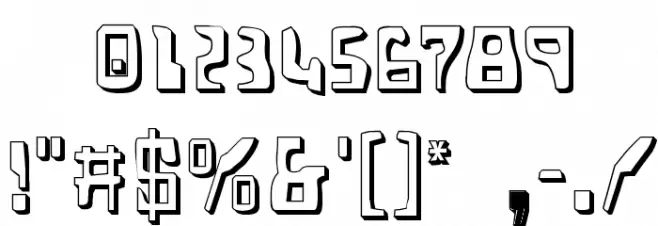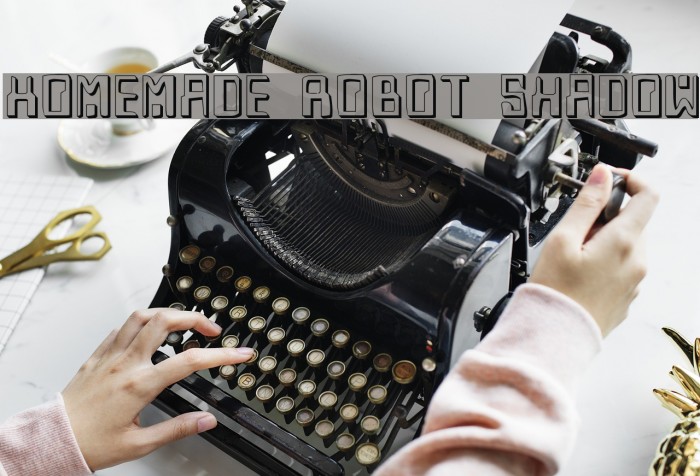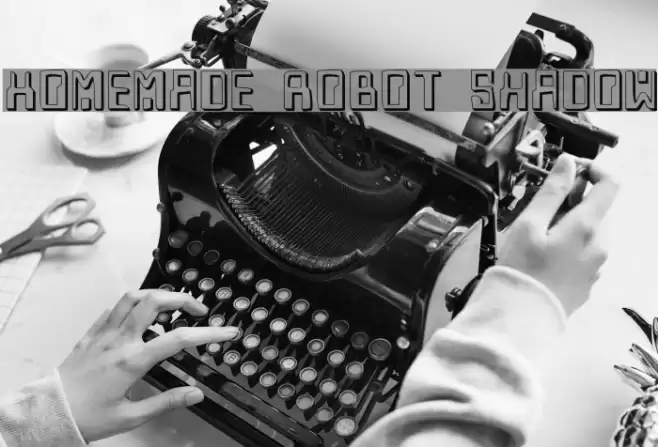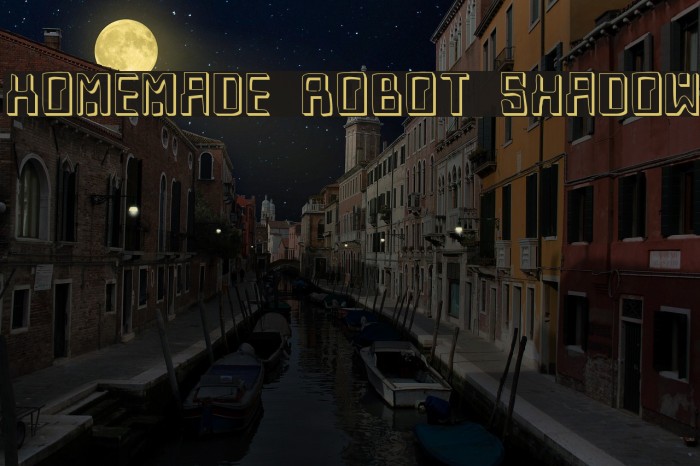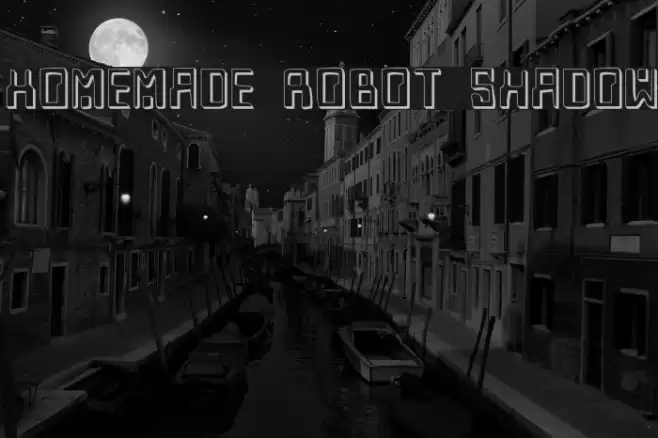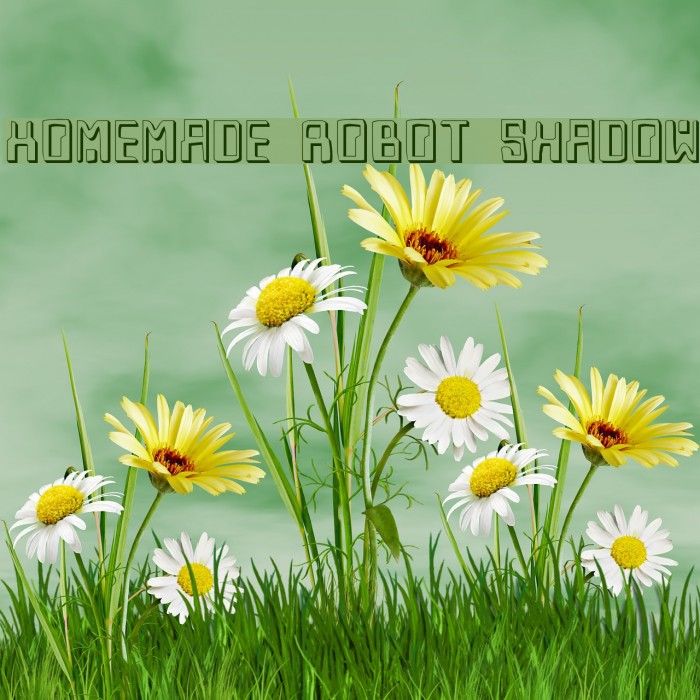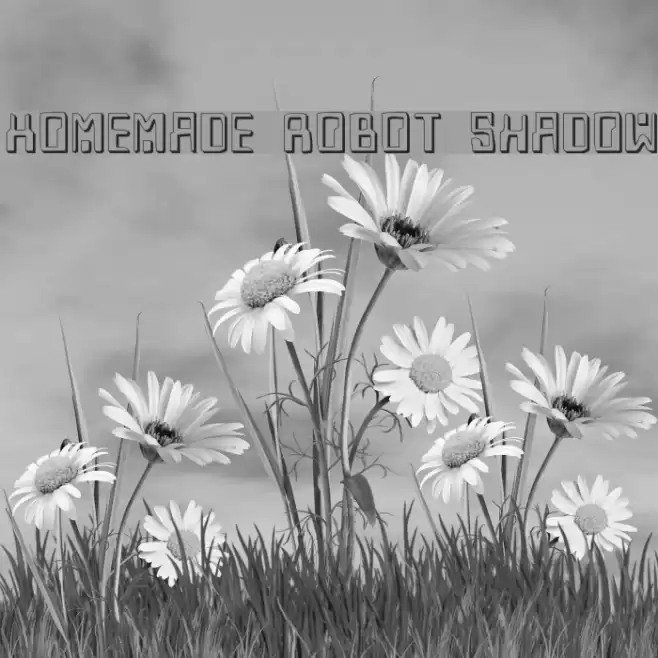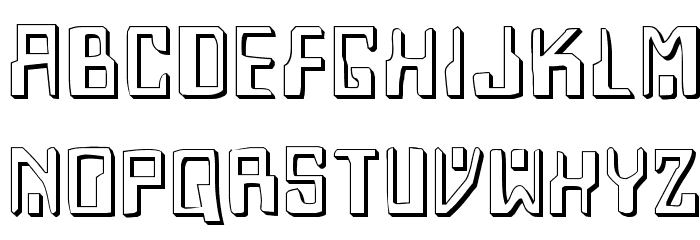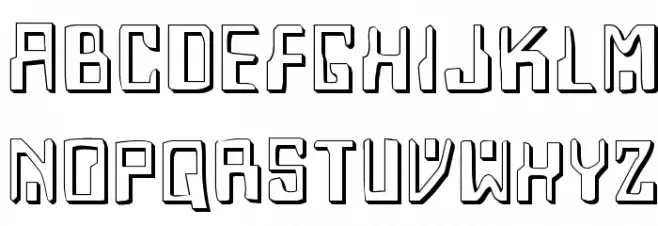
Homemade Robot Shadow Font
This font features a bold, futuristic design with a distinct shadow effect that gives each character a three-dimensional appearance. The letters are outlined with a thick border, creating a sense of depth and structure. The geometric shapes and sharp angles contribute to a modern and technological feel, reminiscent of digital or robotic themes. The uppercase and lowercase letters maintain a consistent style, with the numbers and special characters following suit. The overall aesthetic is clean yet striking, making it suitable for projects that require a contemporary and edgy look.
| Proposed Projects | Ideal for technology-themed posters, video game graphics, sci-fi book covers, and branding for tech startups. |